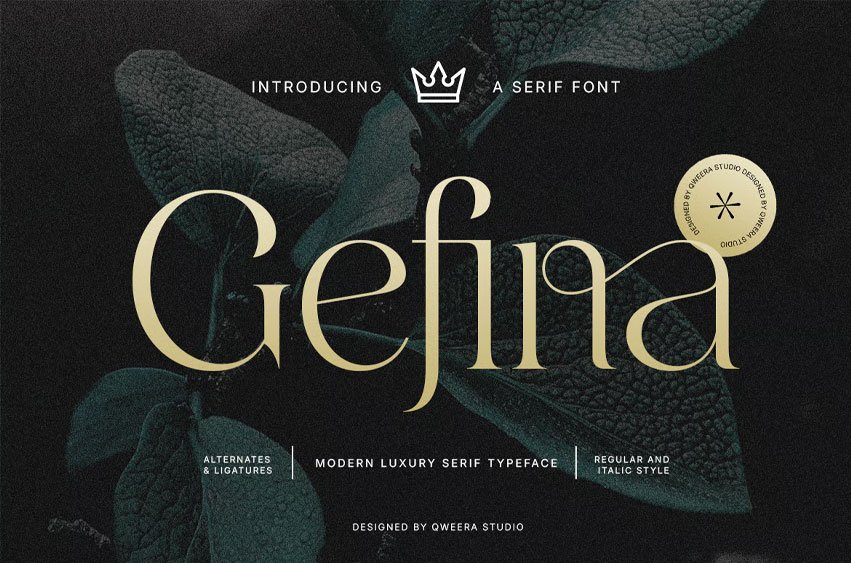
Gefnia Font is a modern luxury serif font designed with refined contrast, graceful curves, and a timeless sense of sophistication. Inspired by quiet luxury, heritage aesthetics, and editorial typography, this typeface brings a premium visual voice to branding, logos, packaging, fashion campaigns, and elegant design projects.
With its balanced proportions and stylish ligatures, Gefnia works beautifully for high-end identities, boutique branding, architectural layouts, luxury magazines, beauty packaging, and refined social media visuals. Its clean structure keeps the design polished, while the expressive details add a distinctive and memorable character.
Perfect for designers who need a serif font that feels modern, elegant, and enduring, Gefnia delivers a confident typographic presence for both print and digital use. Build timeless luxury visuals with the refined elegance of Gefnia.
- Modern luxury serif font
- Alternates and ligatures
- Regular and Italic styles
- Professional kerning
- Suitable for branding, editorial, and packaging design